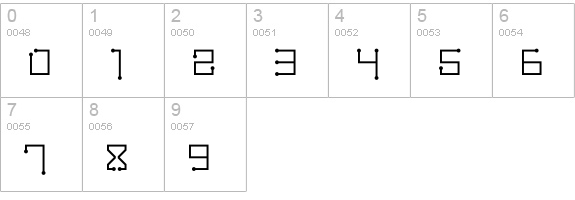
CircuitBoard Font Details
CircuitBoard is a free for personal use font in the Modern > Techno category, designed by Darrell Flood. It has been downloaded 72 times and is available for Windows, Mac and Linux.
CircuitBoard font is a modern and sleek typeface that captures the essence of technology and innovation. With its sharp lines and geometric shapes, this font is perfect for projects related to electronics, coding, and digital design. The futuristic look of CircuitBoard font will add a contemporary touch to any design.